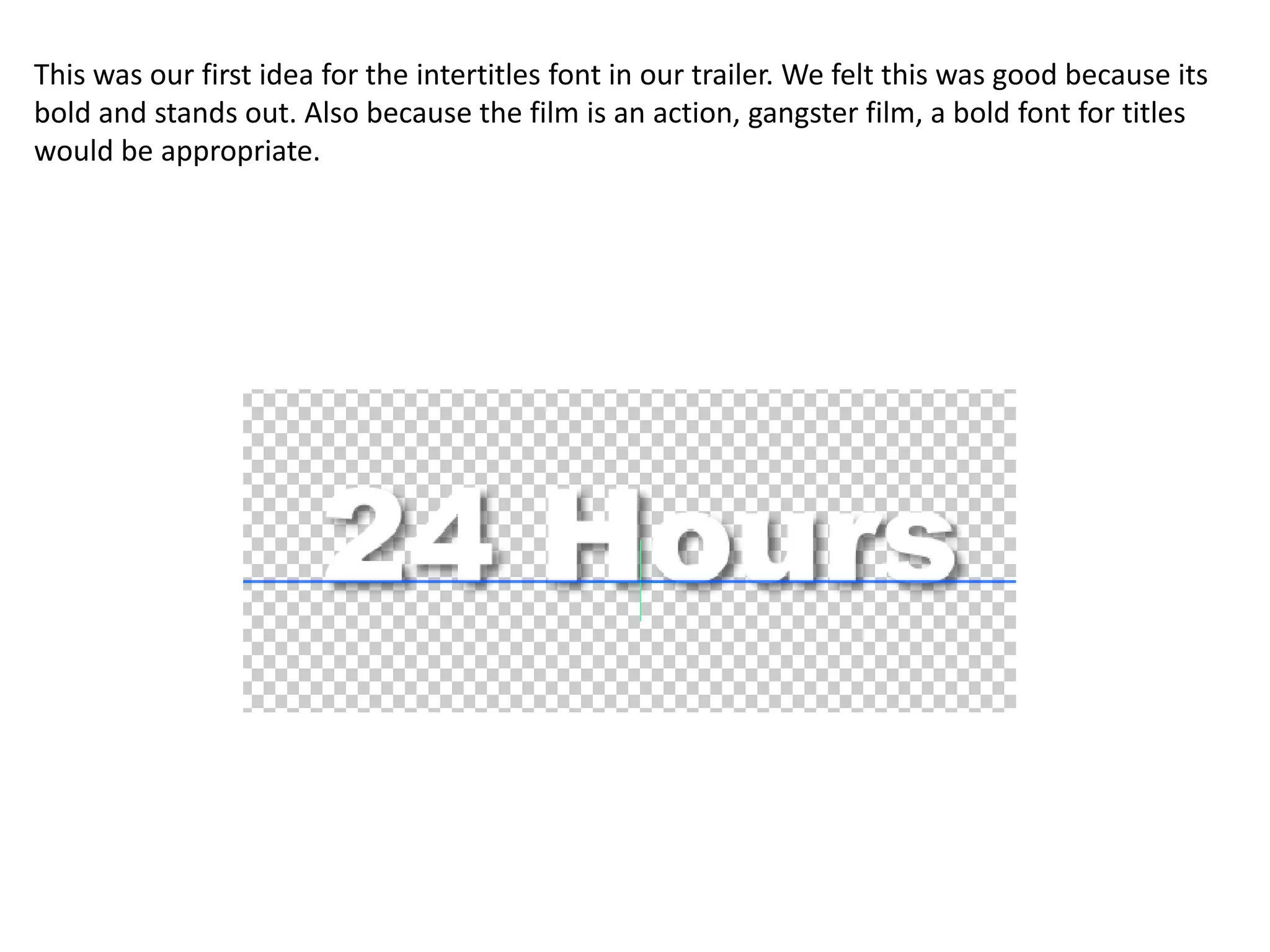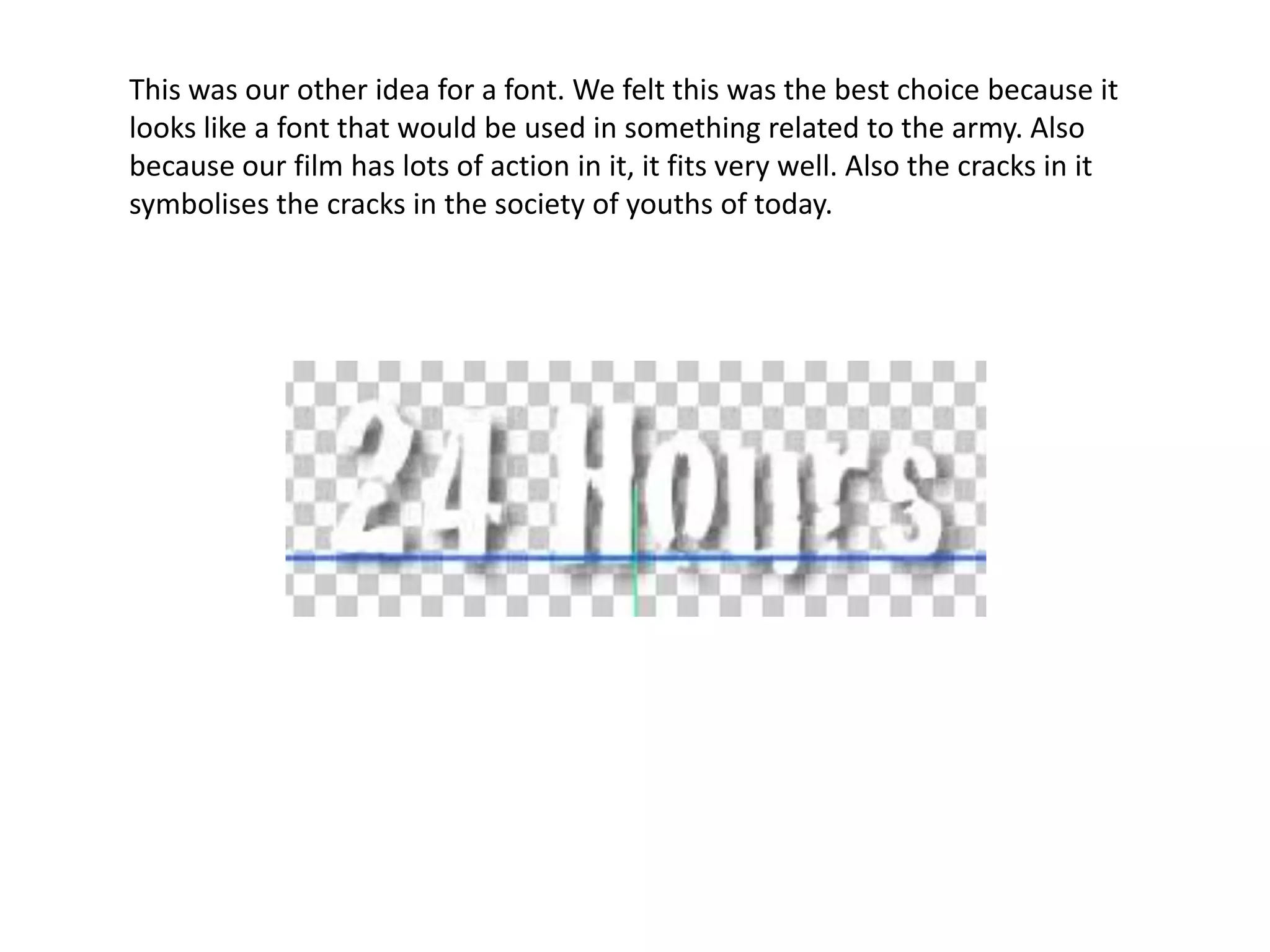
This was our first idea for the intertitles font in our trailer. We felt this was good because its bold and stands out. Also because the film is an action, gangster film, a bold font for titles would be appropriate.
This was our other idea for a font. We felt this was the best choice because it looks like a font that would be used in something related to the army. Also because our film has lots of action in it, it fits very well. Also the cracks in it symbolises the cracks in the society of youths of today.